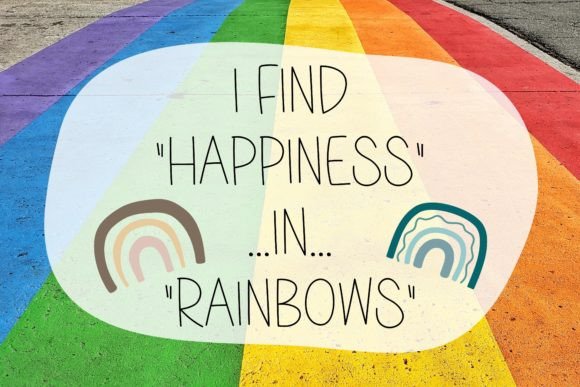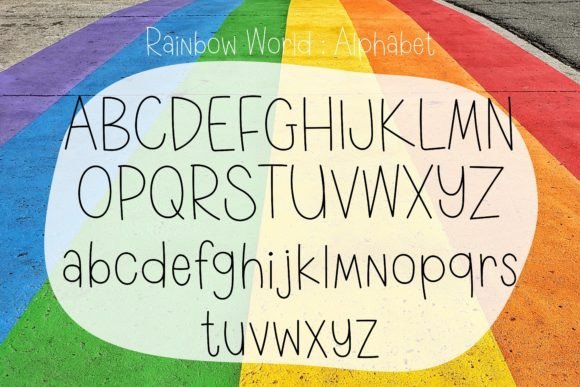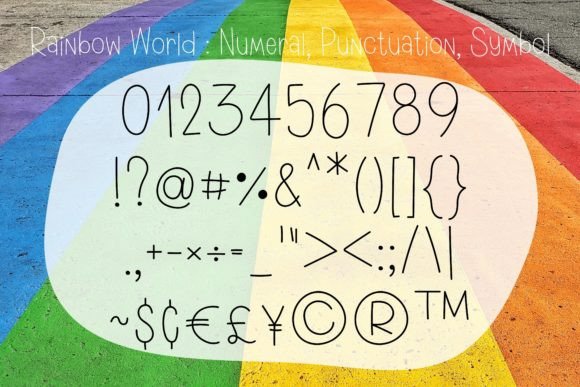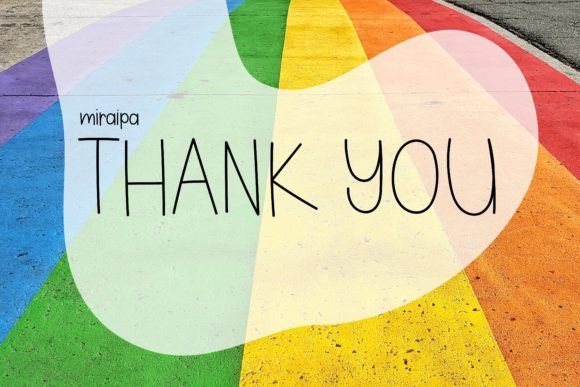
Introduction to Rainbow World Font
Rainbow World is a friendly and lovely handwritten font.
It embodies playfulness and authenticity and is the perfect choice for any childrenโs activity or school project .